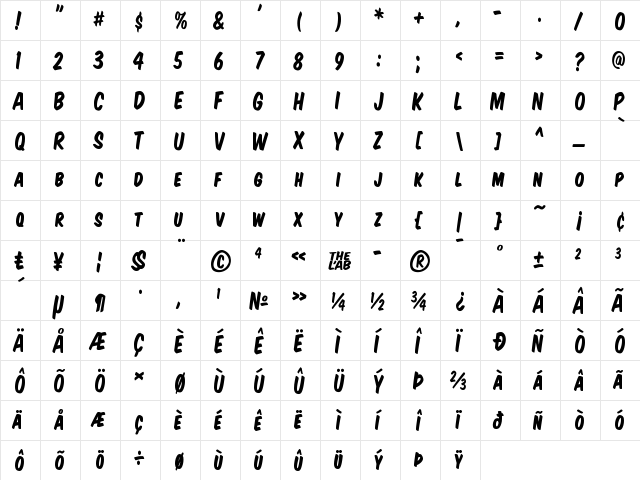
Komika Title - Kaps Regular
| Designer | WolfBainX & Apostrophe |
Design Context for Komika Title - Kaps Typeface
Komika Title - Kaps is a composed and adaptable typeface that performs quietly and consistently across a wide range of design contexts.